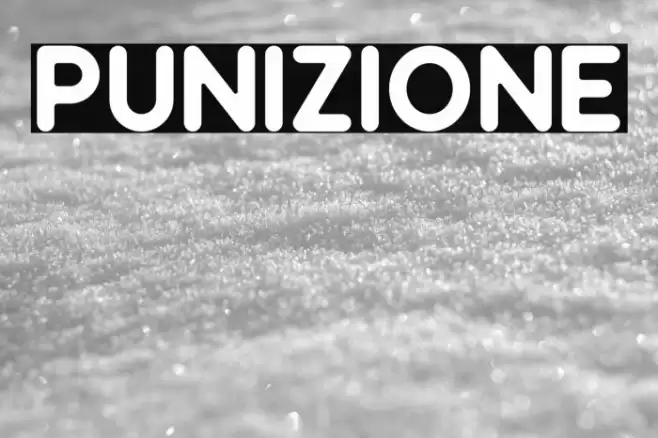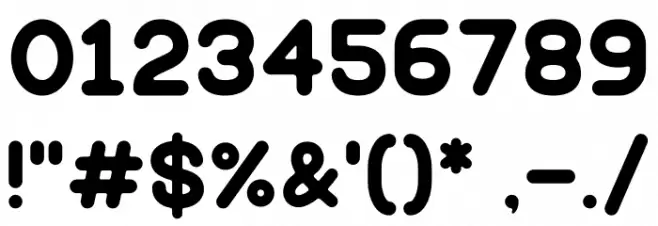
Punizione Font
Punizione Description
This font features bold, rounded characters with a consistent stroke width, giving it a friendly and approachable appearance. The letters are evenly spaced, contributing to a clean and modern look. The rounded edges soften the overall aesthetic, making it suitable for a variety of applications. The numerals and special characters maintain the same rounded style, ensuring uniformity across all elements. This font's simplicity and clarity make it highly readable, even at smaller sizes.
A bold, rounded font with a modern and friendly appearance from Uncategorized fonts.
- Proposed Projects: Ideal for branding, signage, children's books, and digital interfaces where a welcoming and clear typeface is desired.
- Use Case: Headlines, Logos, Signage